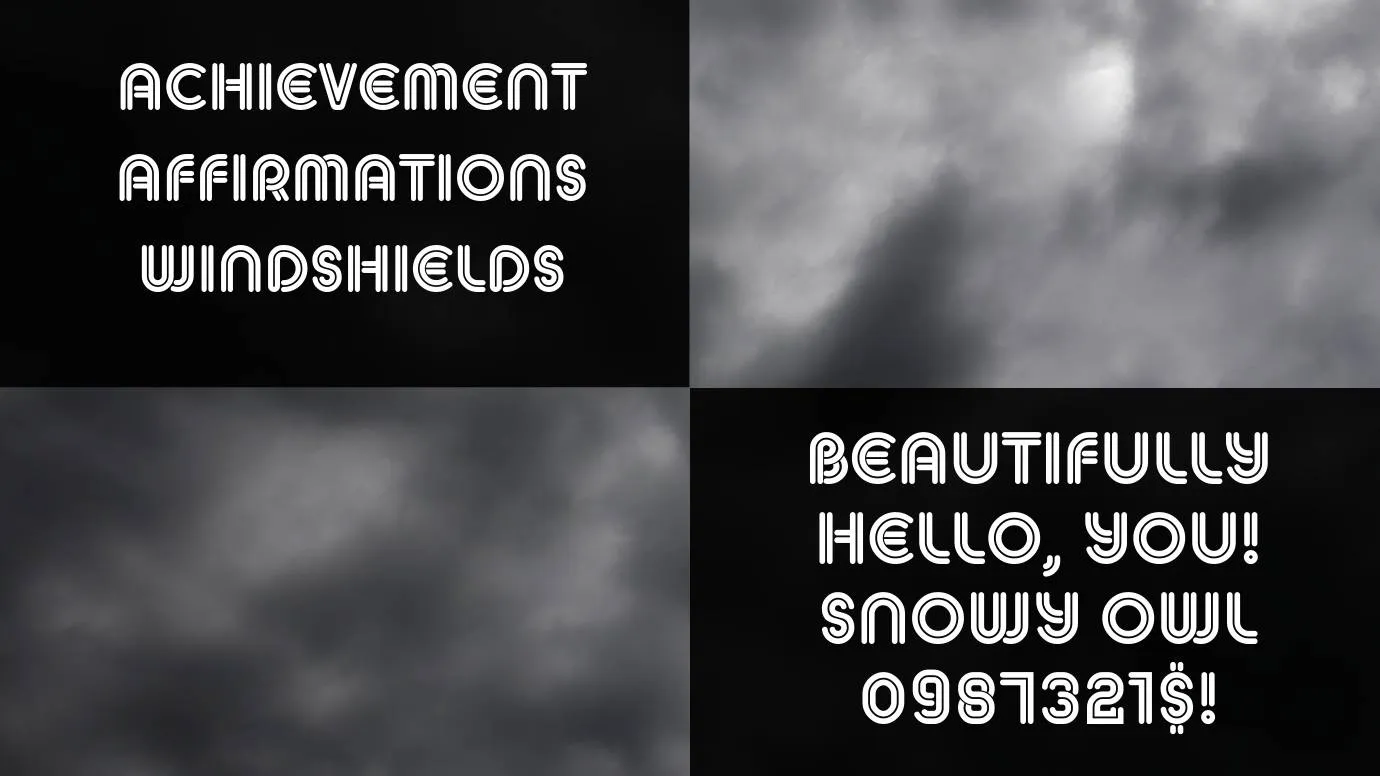
In this post, I shall introduce to you an attractive and astonishing typeface. Maccos font is a unique and lovely typeface. This typeface is available in OTF and TTF formats. It is also available in on regular style. This typeface looks like a striped font.
This typeface is available in a complete set of 355 characters including capital and small alphabets, numbers, special characters, and symbols. It also has a complete set of glyphs.
This typeface is similar to the sega font because both have almost similar characters. This typeface is used on the covers, posters, and logos.
You can use this typeface with the varsity font to make your text artistic and stylish. You can use this typeface in the making of posters, magazine covers, brochures, T-Shirt designs, product packaging, brochures, book titles, invitation cards, fashion designing, shop names, banners, and many more designing projects.
This beautiful and unique typeface is created by a Turkish typeface designer Mehmat Abaci for the foundry Studio Typo in 2018. He designed many other popular typefaces.
This font style is created with an exclusive and regular style. This single attractive style is a combination of different characteristics, including capital and small letters, numbers, punctuations, glyphs, symbols, special characters, and several language support.
It is a good typeface if you are using this typeface in posters, banners, logos, and covers. But if you want to use it in the body text or paragraph settings then it is not good for this purpose.
Yes, you can use this typeface in logos. You can also use this typeface in product packaging, posters, magazine covers, T-Shirt designs, and fashion designing.